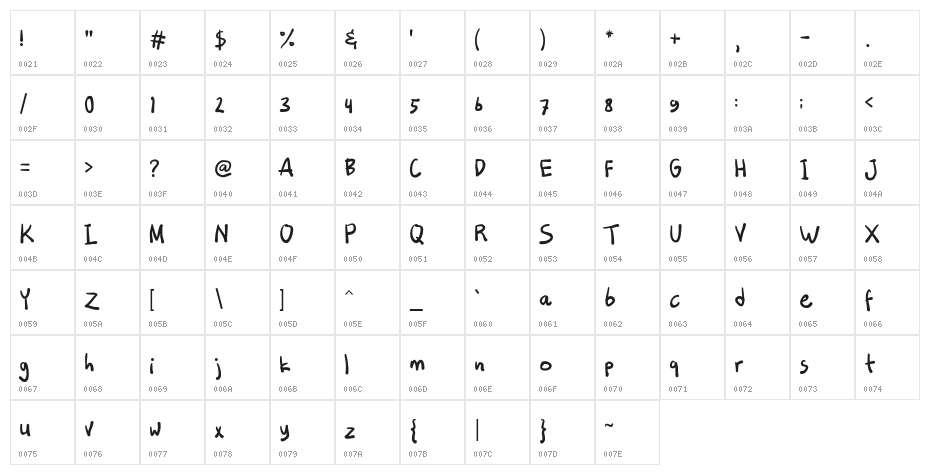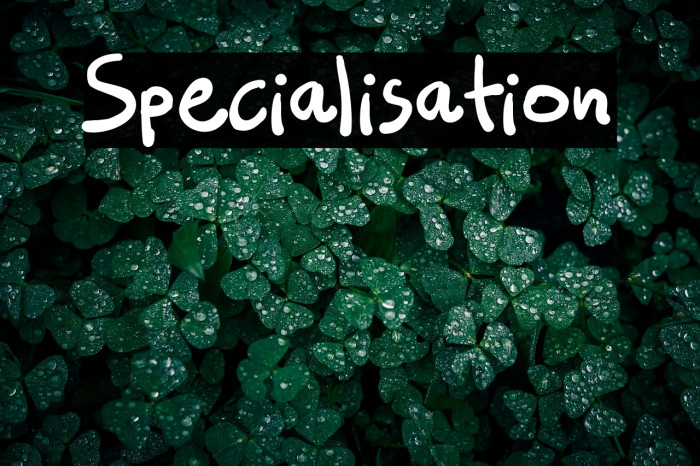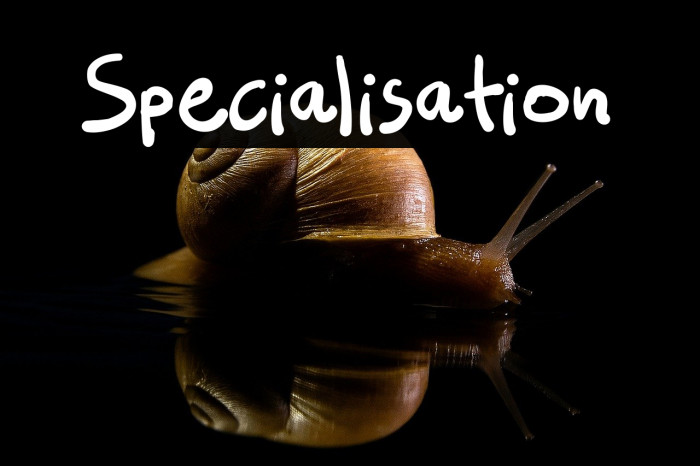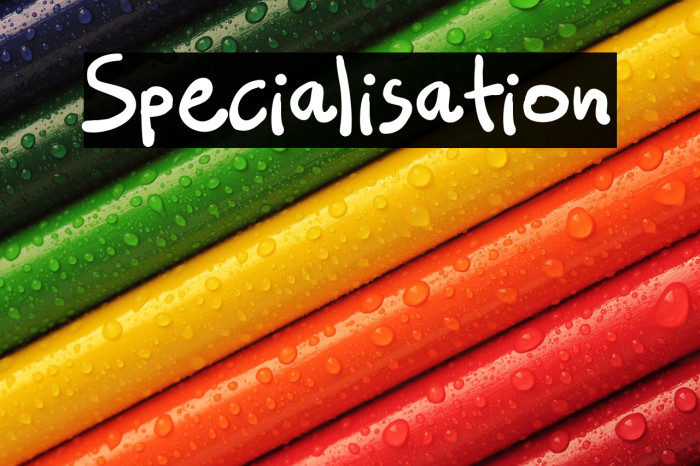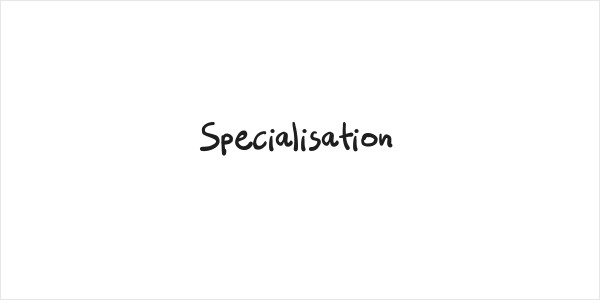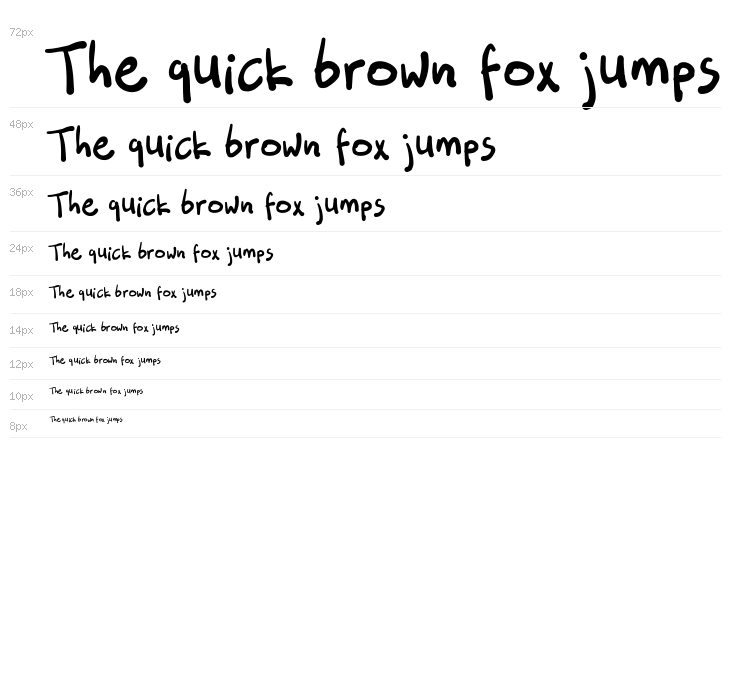
Specialisation Font
Specialisation Description
A playful, handwritten font with a casual and informal style, featuring irregular strokes and a friendly appearance.
Fonts by Steven Joss
| Proposed Projects | Greeting cards, children's books, informal invitations. |